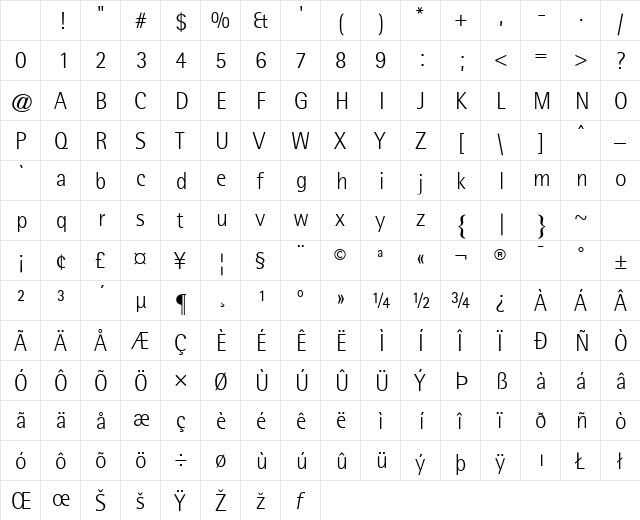
Libre SemiSans Light SSi is a composed and adaptable typeface that performs quietly and consistently across a wide range of design contexts. Its slender proportions lend an understated elegance to any composition.